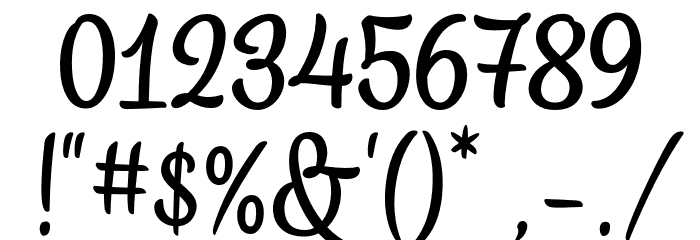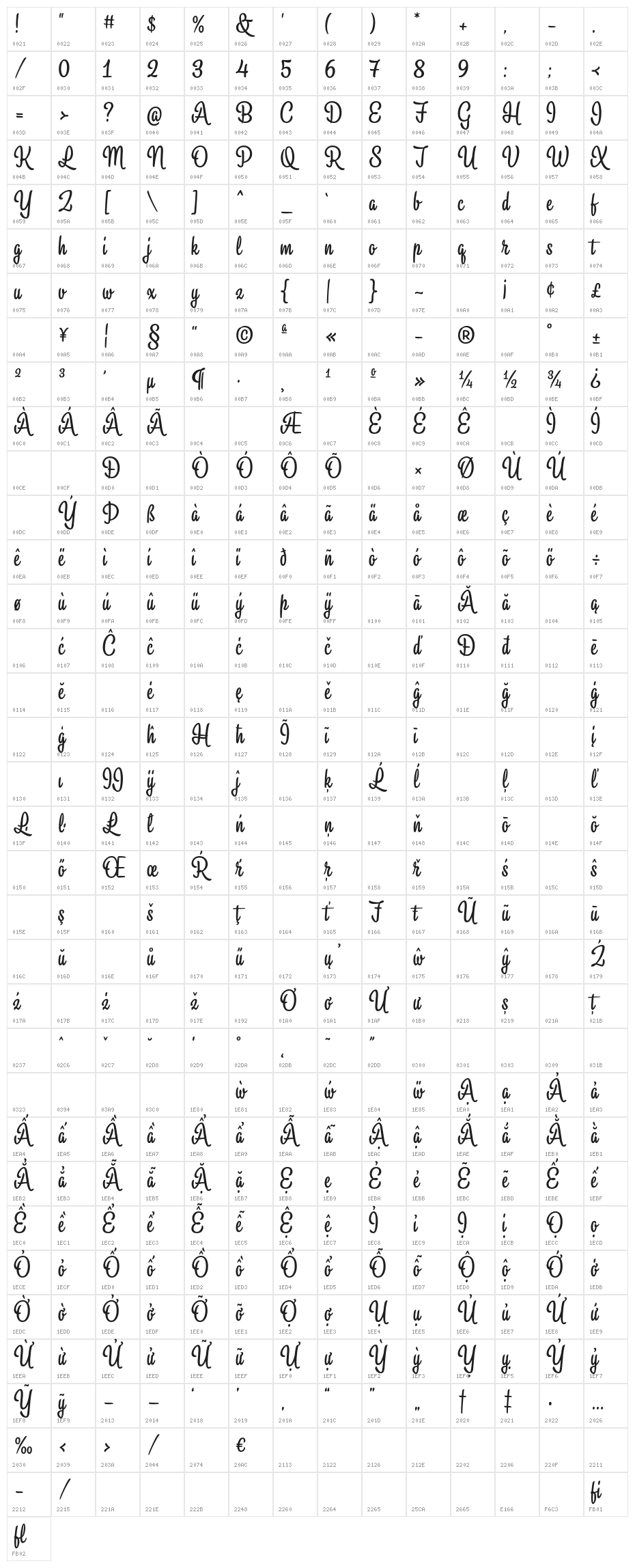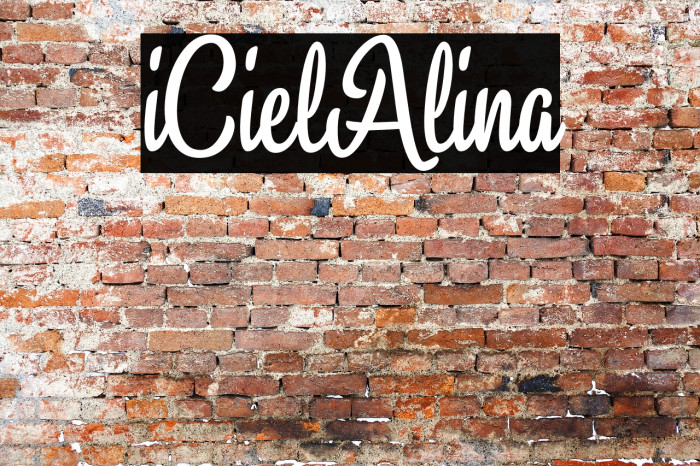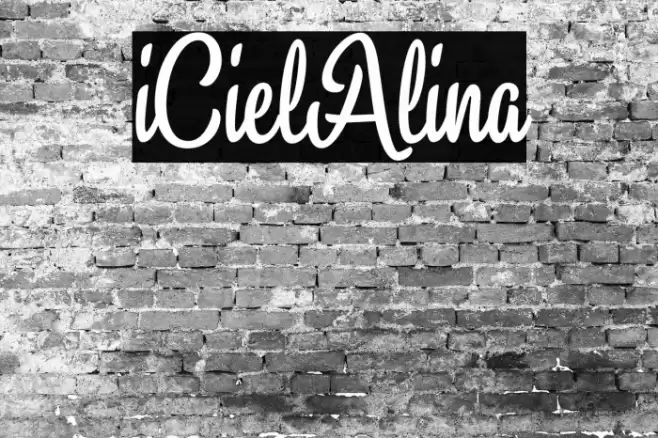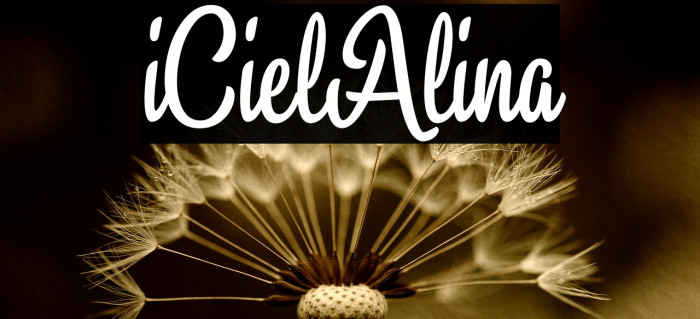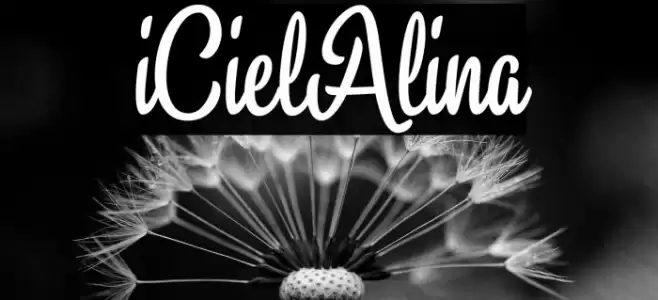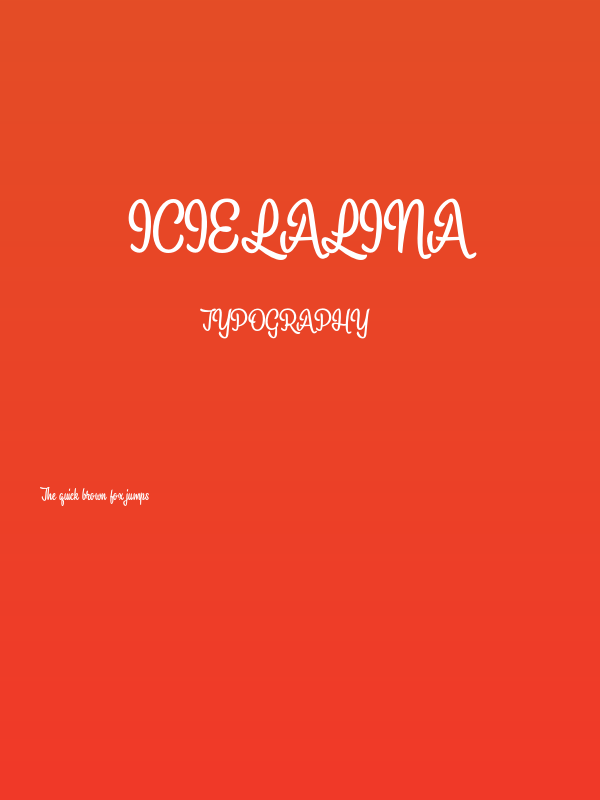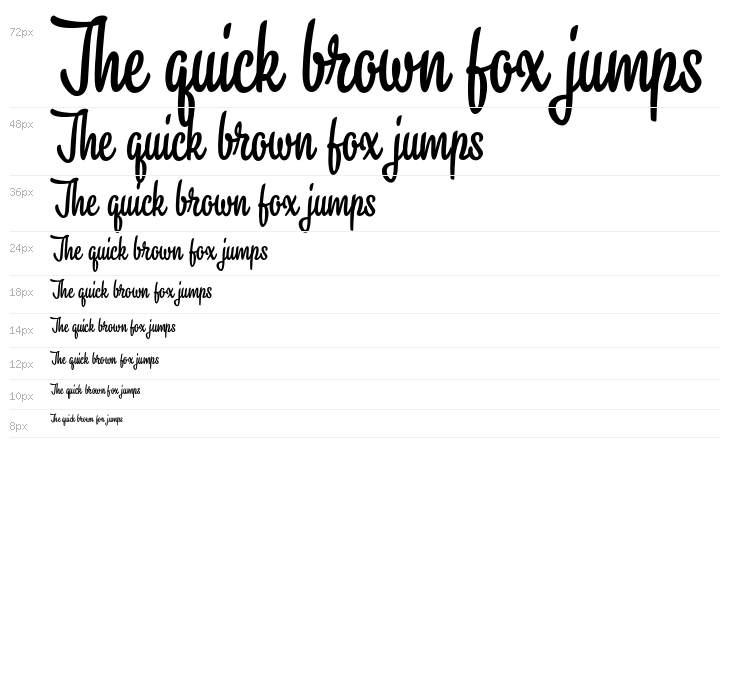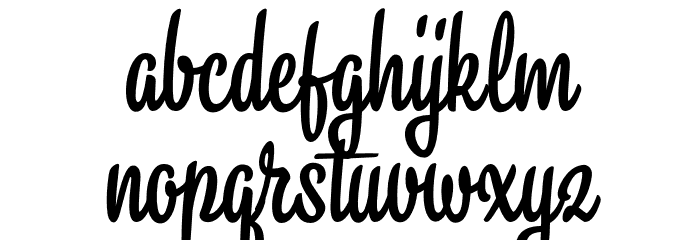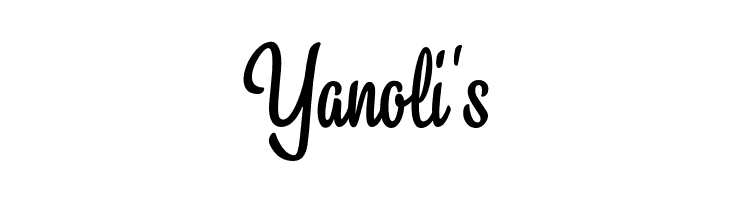
iCielAlina Font
iCielAlina Description
This font features a playful and elegant script style with a smooth, flowing appearance. The uppercase letters are bold and slightly slanted, giving a sense of movement and grace. The lowercase letters maintain a consistent style, with rounded edges and a cursive flair that enhances readability. Numbers and special characters are designed to match the overall aesthetic, providing a cohesive look across all elements. The font's design is both modern and timeless, making it versatile for various applications. Its unique character spacing and medium contrast in stroke thickness add to its charm, making it suitable for creative and artistic projects.